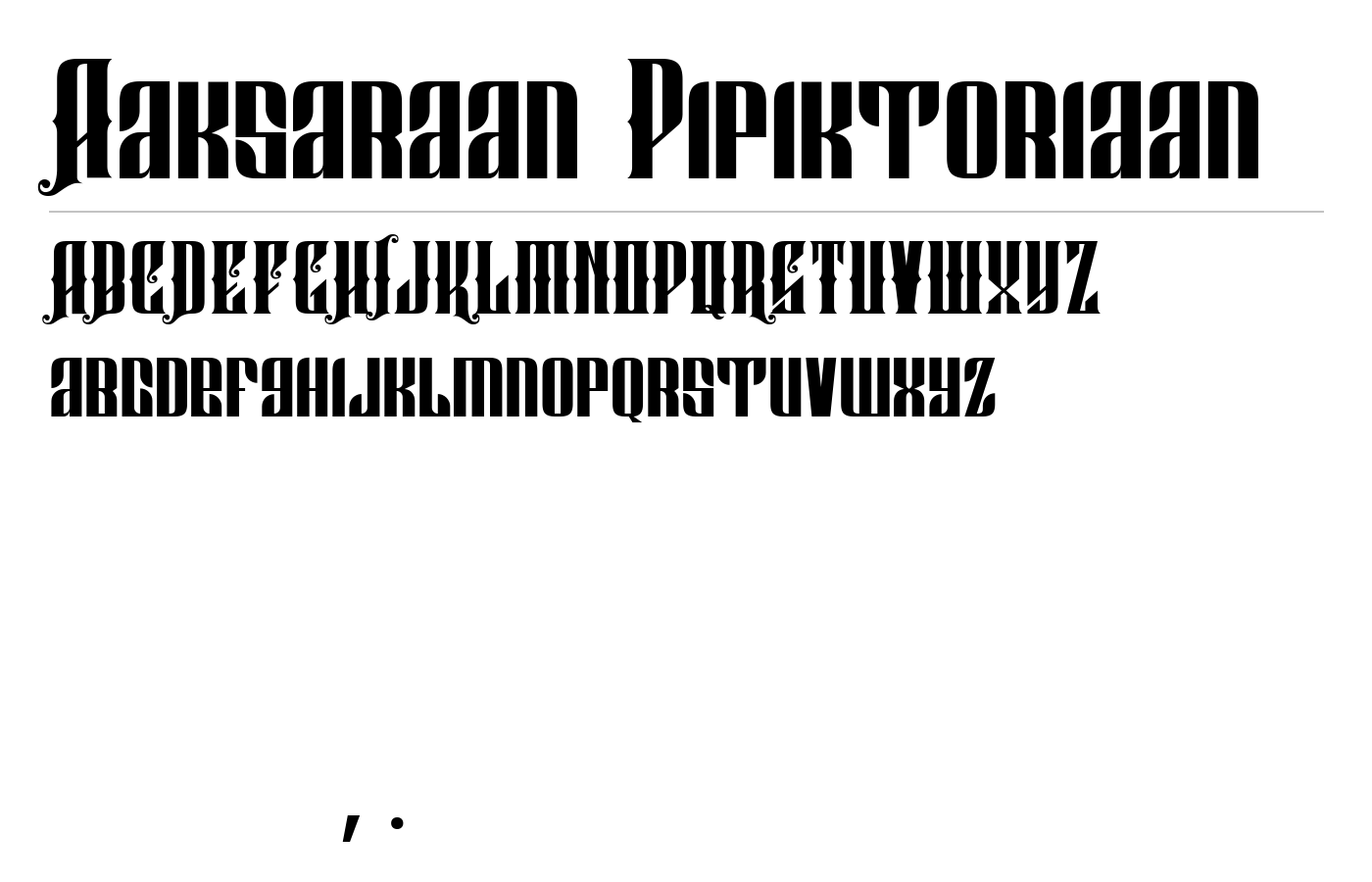
Aaksaraan Pipiktoriaan is a bold, condensed serif font with striking high contrast between thick and thin strokes, featuring sharp, ornamental details reminiscent of Victorian-era typography. Its tall, narrow letterforms and intricate serif accents give it a dramatic, vintage feel, making it ideal for eye-catching headlines, branding, and posters that require a unique and sophisticated touch. This font works best where a strong, elegant statement is needed, especially in fashion, luxury, or historic-themed designs.
Aaksaraan Pipiktoriaan Font
About Aaksaraan Pipiktoriaan Font